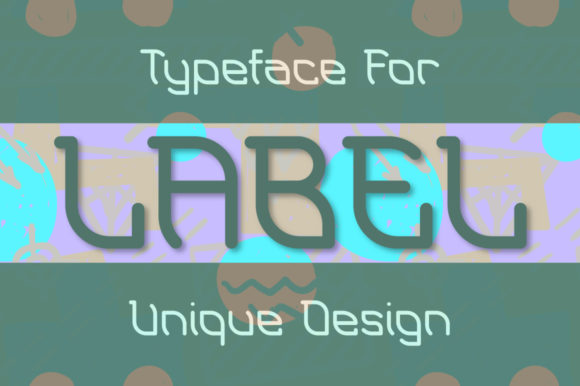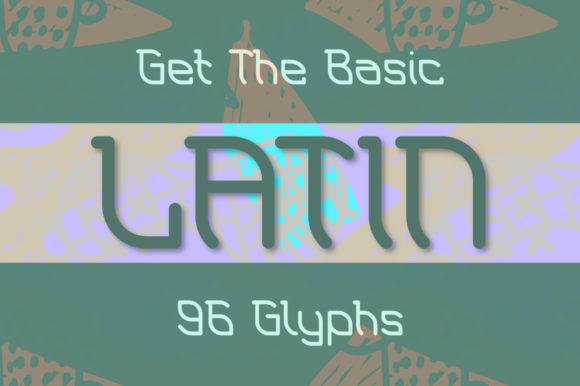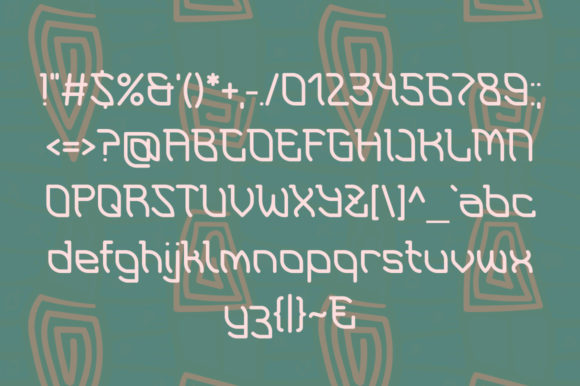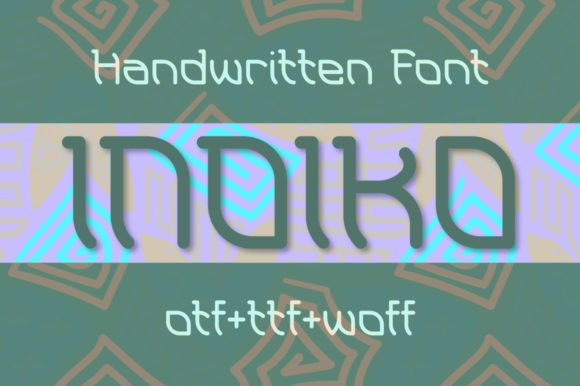
Introduction to Indiko Font
Indiko is a chic, whimsical and cute display font.
This adaptable font will look great on a variety of design ideas It will add a fun and friendly touch to each of your projects.
Indiko Font offers exceptional quality and versatility, making it a valuable addition to your design toolkit. Whether you’re creating for personal projects or commercial use, Indiko Font delivers professional results.